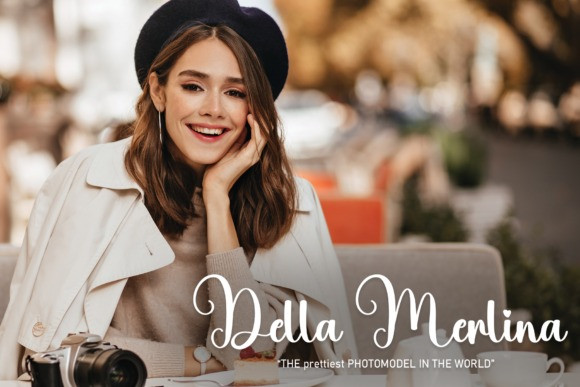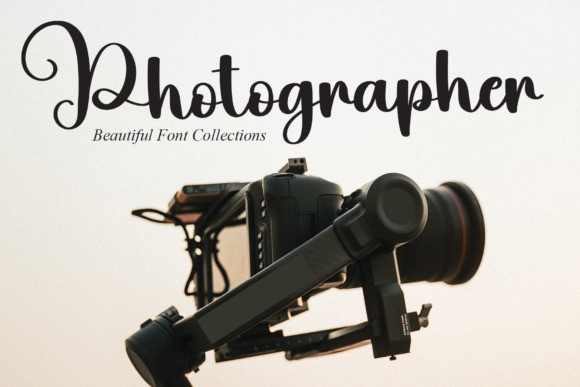
Billi Font
Billi Font is a beautiful script font with hearts for dots and swashes. This font will radiate the romantic feeling of your design. It can be used for a wide range of applications, such as wedding design, logos, invitations, social media posts, and others.